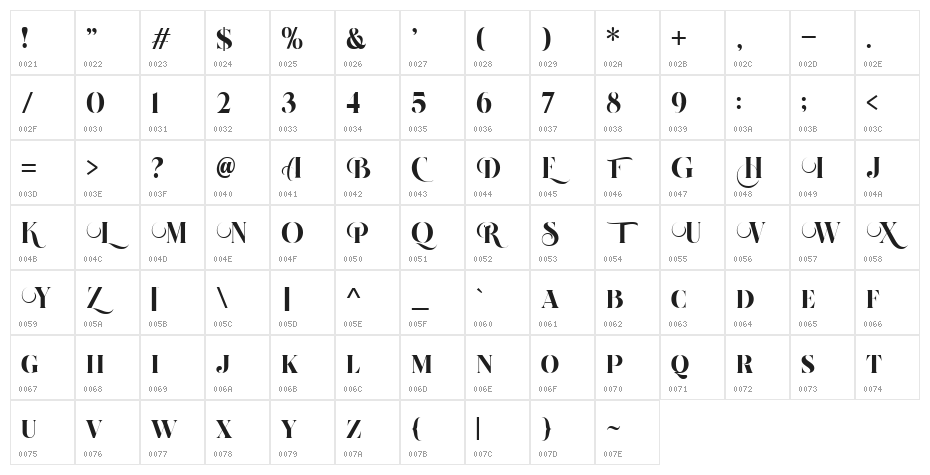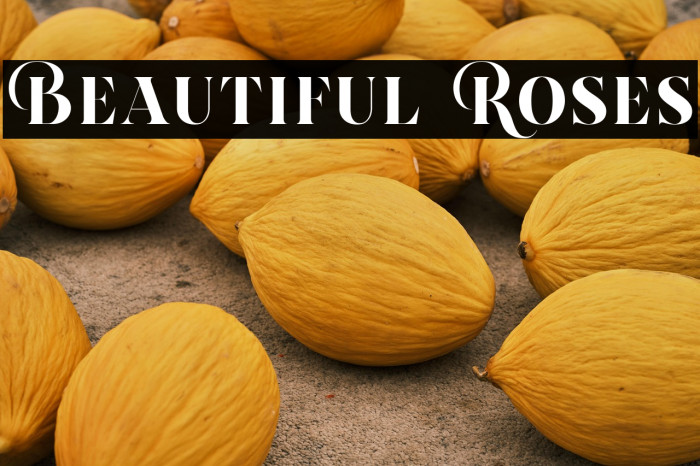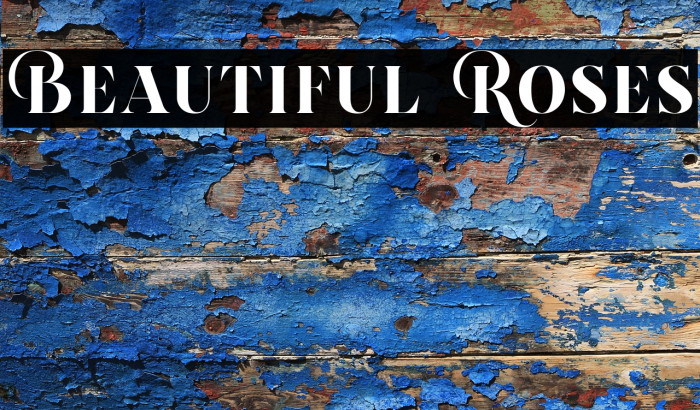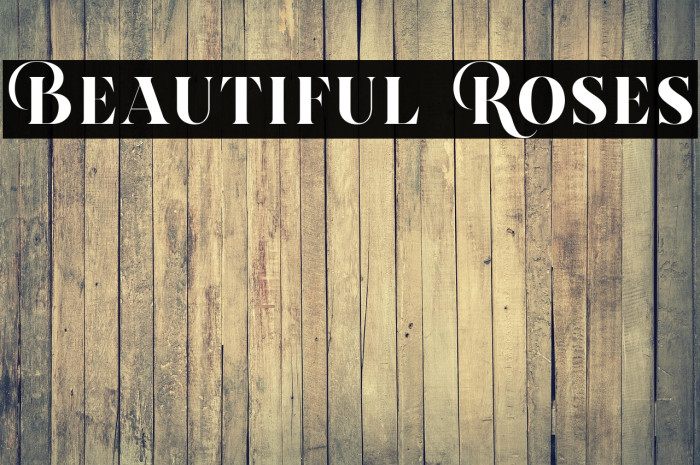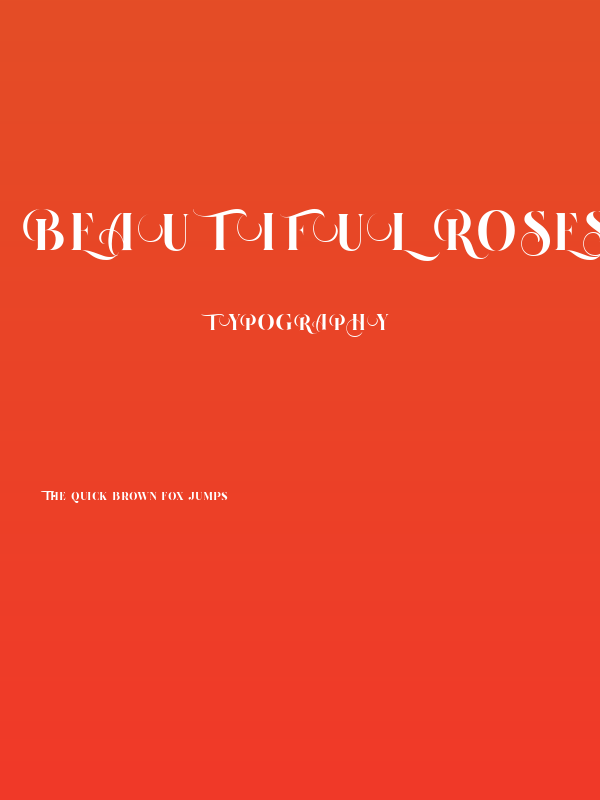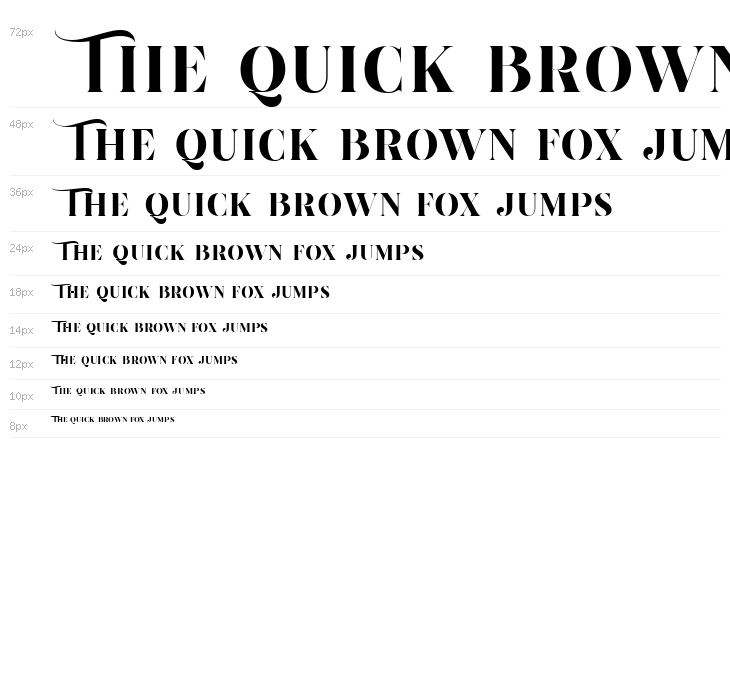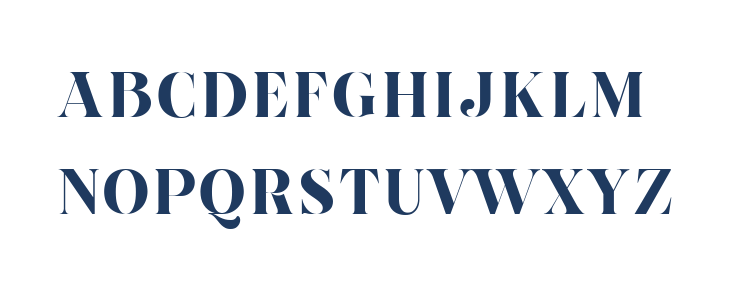
Beautiful Roses Font
Beautiful Roses Description
This font features an elegant and sophisticated design with a blend of decorative and classic elements. The uppercase letters exhibit unique flourishes and swashes, adding a touch of artistry and flair. The lowercase letters maintain a more traditional serif style, providing a balanced contrast. The numerals are bold and clear, ensuring readability. Special characters are crafted with the same attention to detail, making them suitable for various design needs. The overall aesthetic is both timeless and modern, making it versatile for a range of applications.
| Proposed Projects | Ideal for wedding invitations, luxury branding, editorial design, and high-end product packaging. |